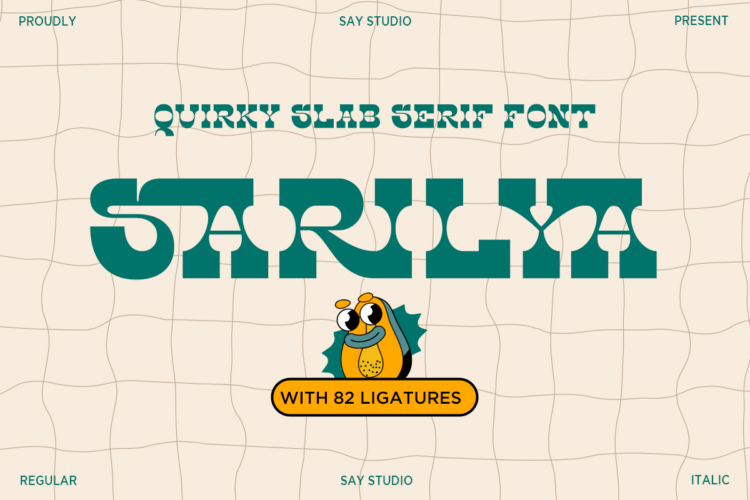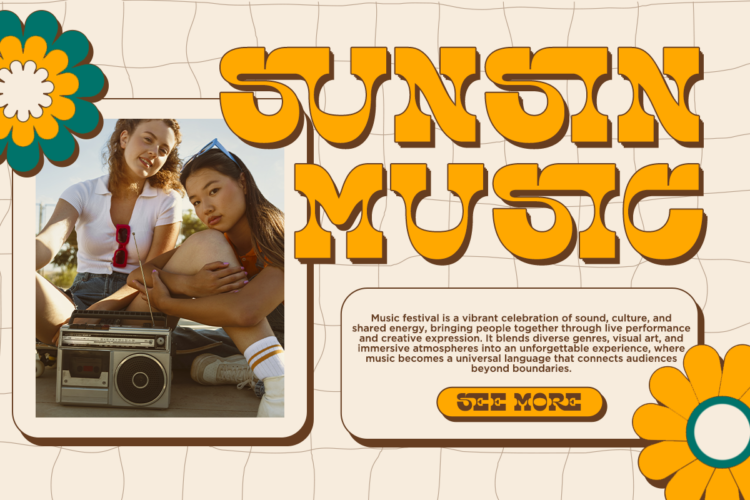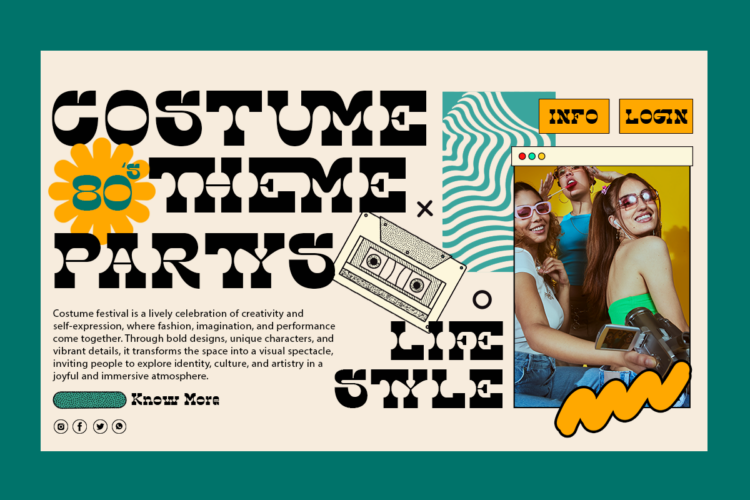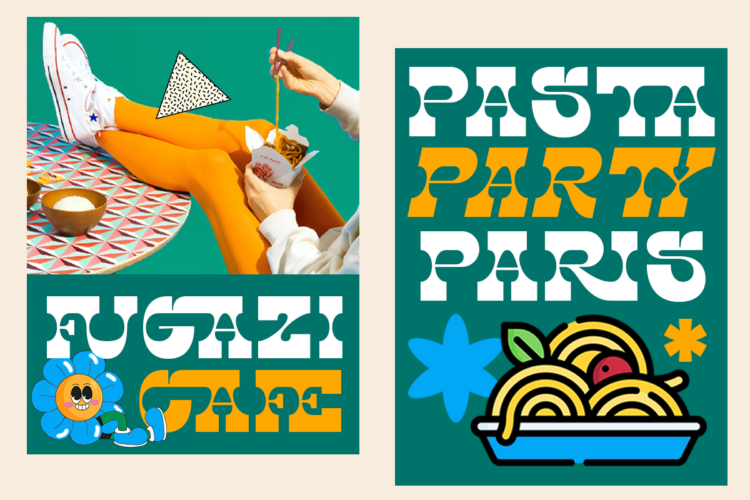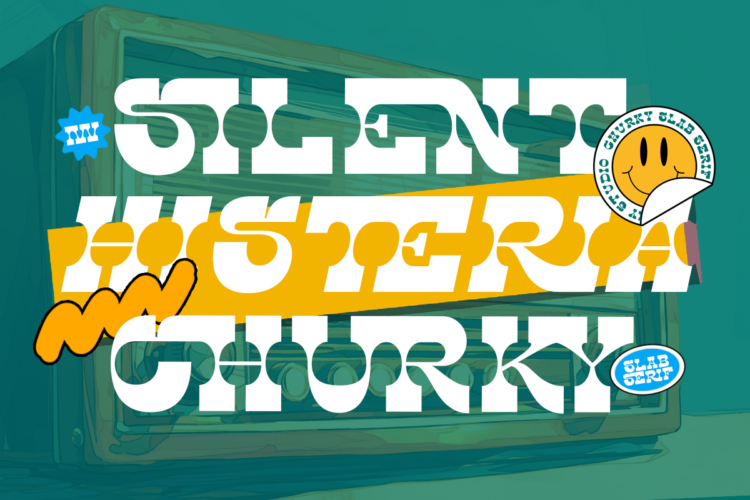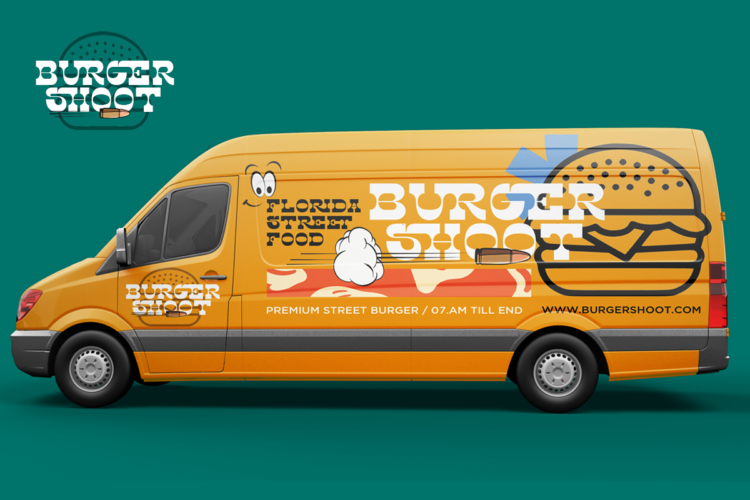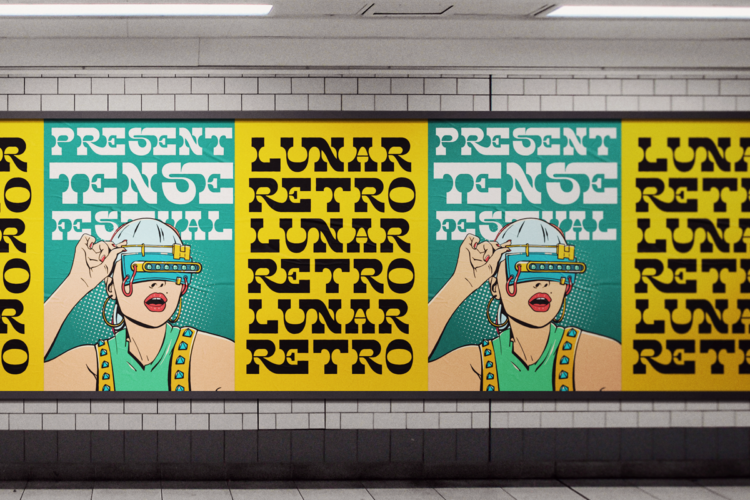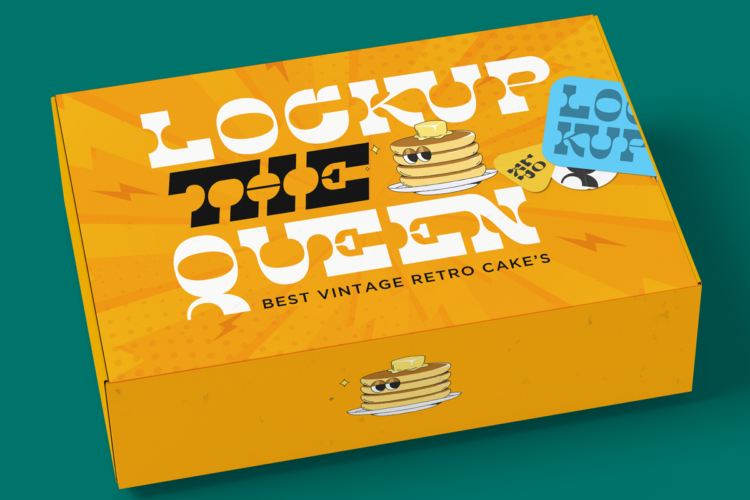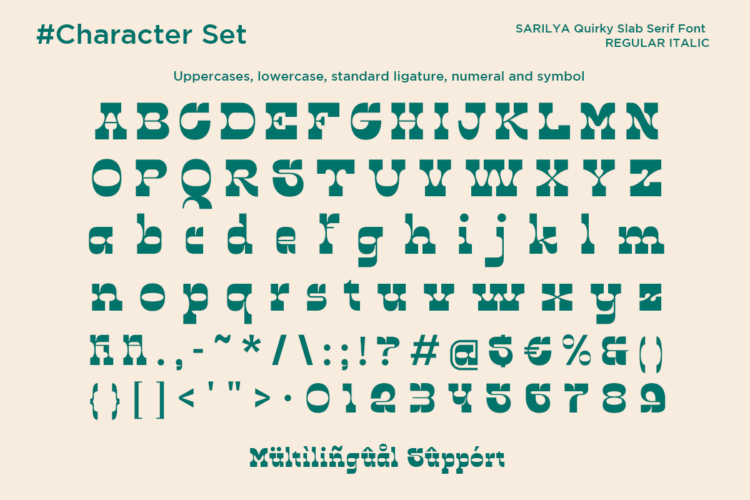
Sarilya Regular
Sarilya Italic
Sarilya is a quirky slab serif display font with a bold, playful personality and strong visual impact. Designed with chunky shapes, rounded details, and unique ligatures, this font brings a fun yet confident character to any creative project. With 82 expressive ligatures, Starlya adds dynamic rhythm and distinctive charm, making it perfect for branding, logos, posters, headlines, packaging, and editorial designs. Whether you want a retro feel or a modern playful touch, Starlya delivers eye-catching typography that stands out.
Sarilya – Quirky Slab Serif